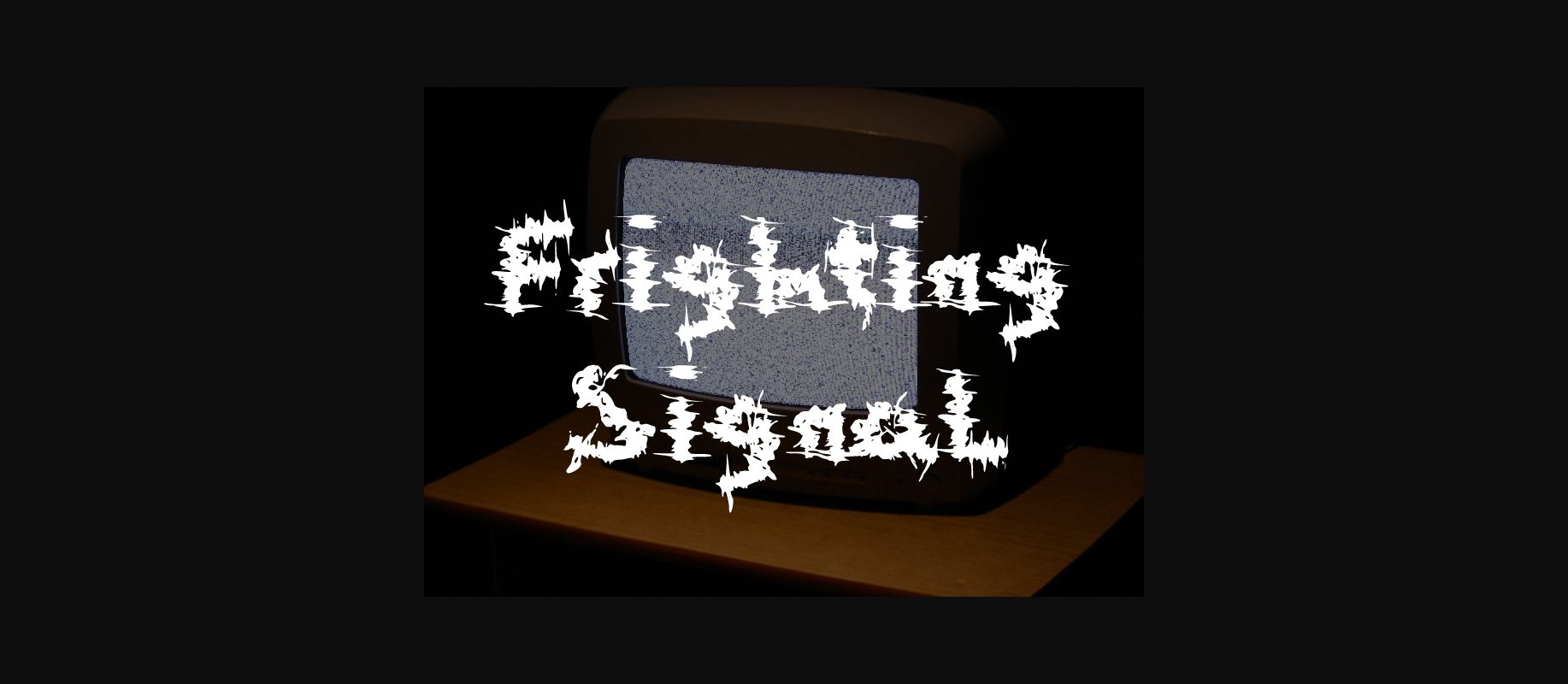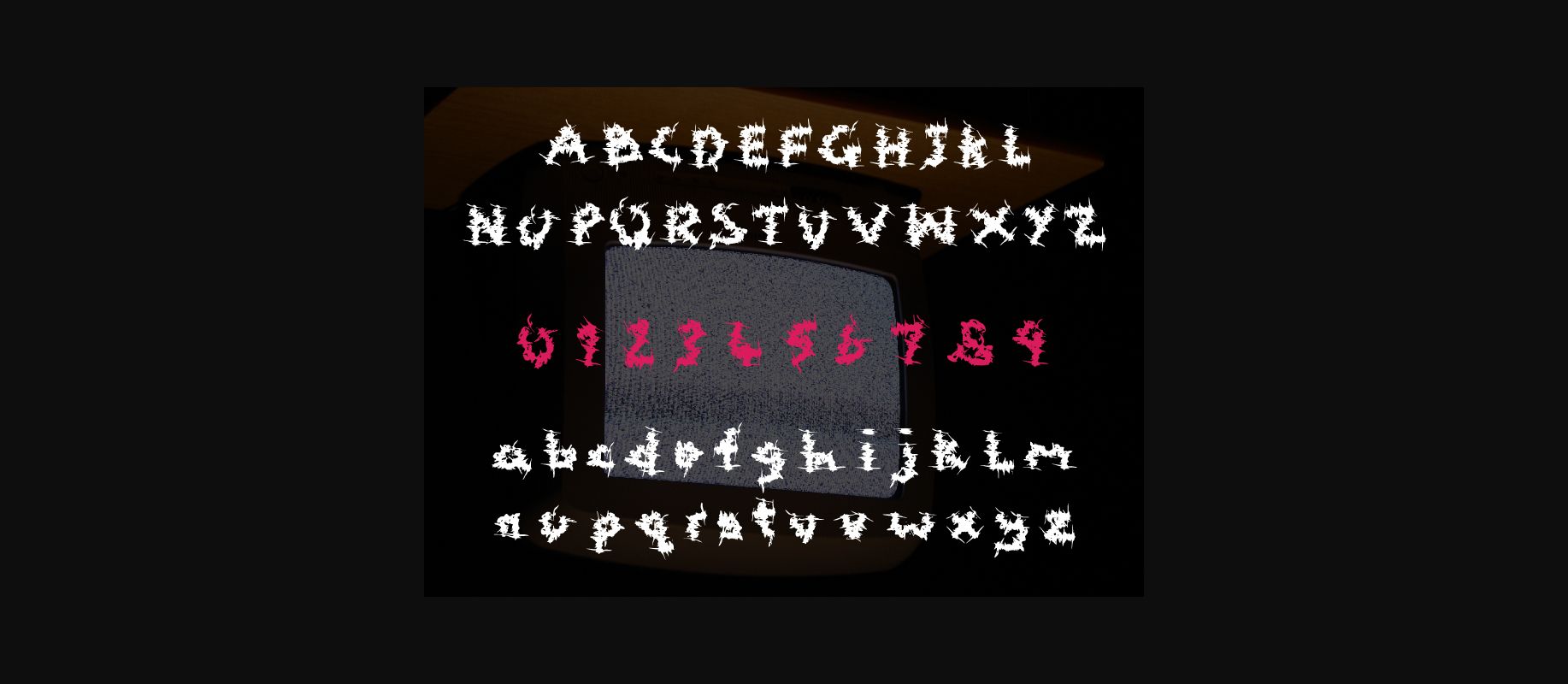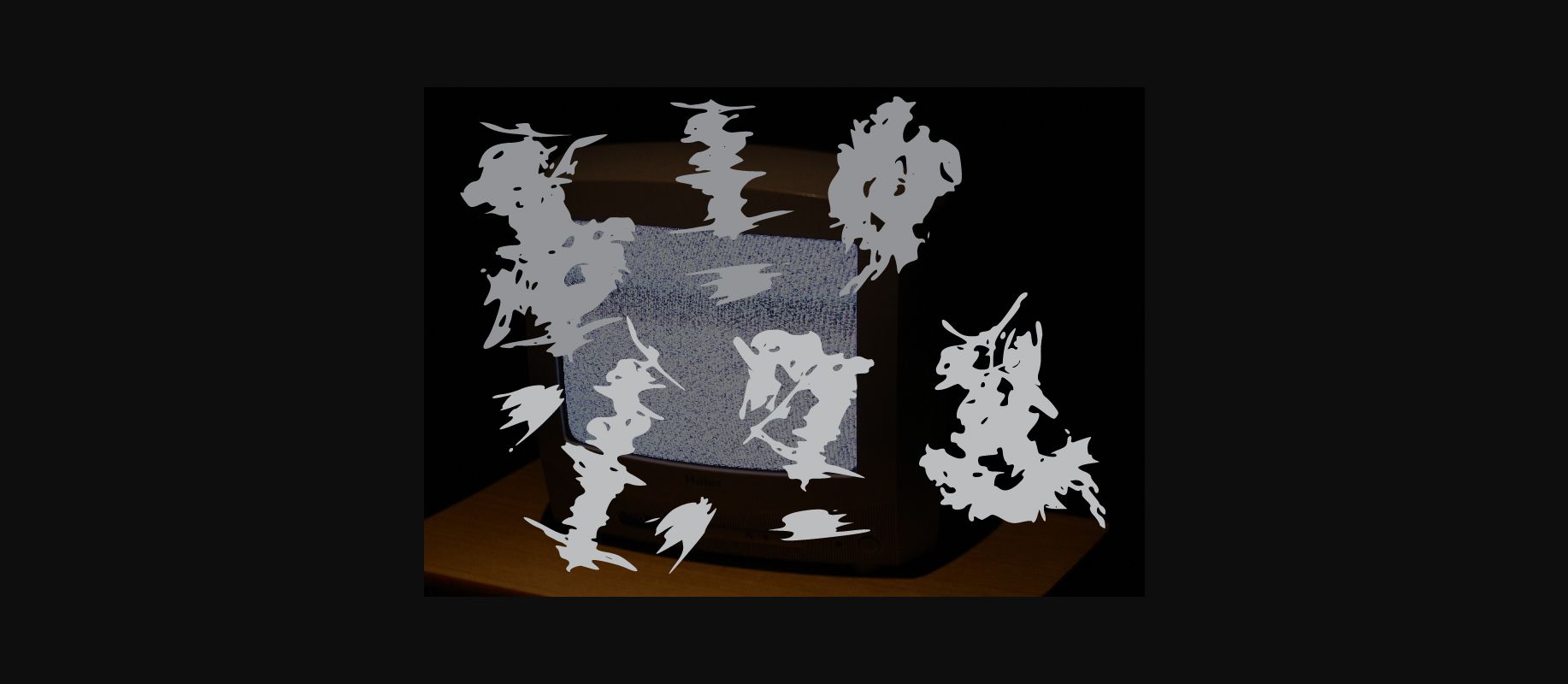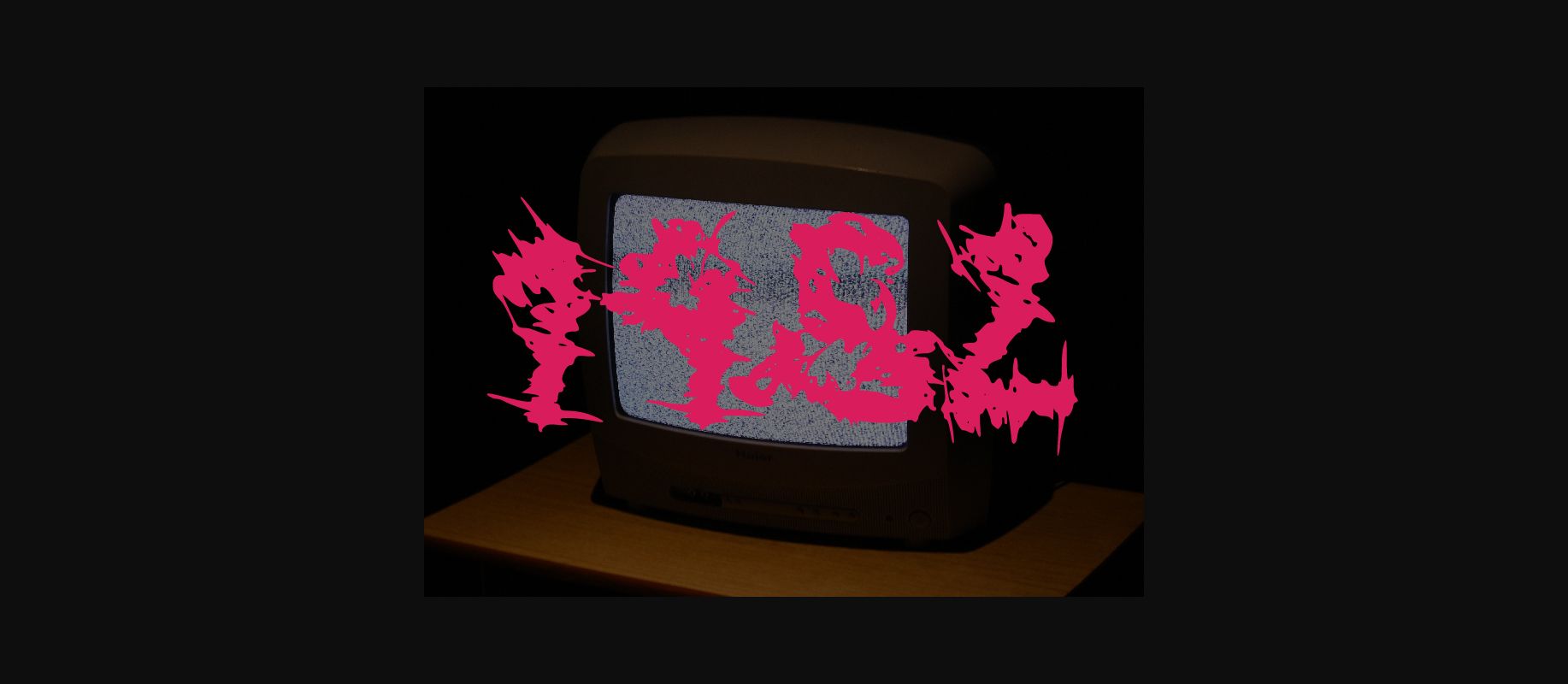
Frighting Signal Font
About Frighting Signal Font
Frighting Signal is a unique display font. It gives the impression of erratic and extremely static. This effected font is perfect for a horror theme or a design that needs a shocking style!